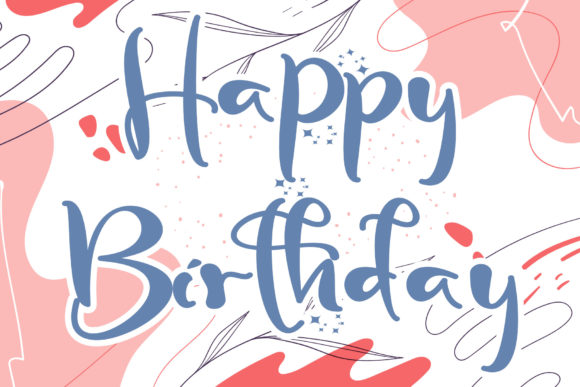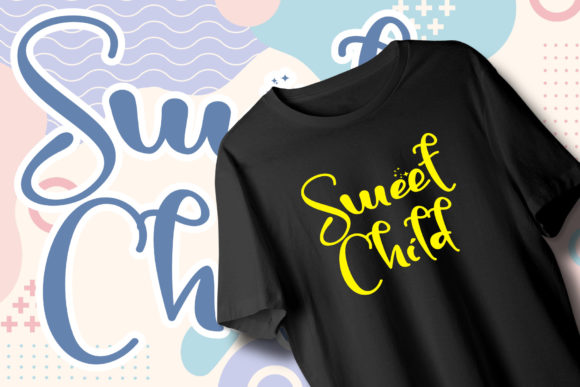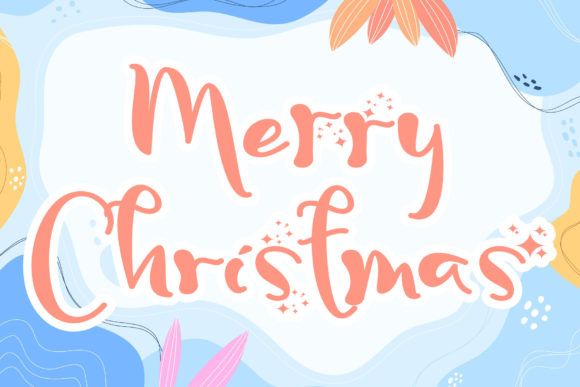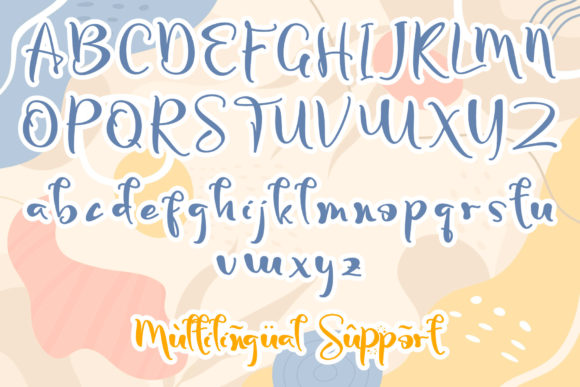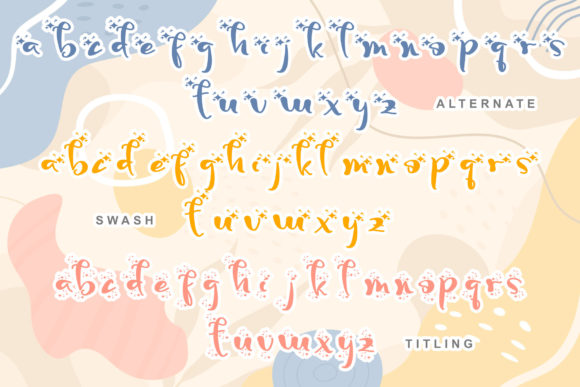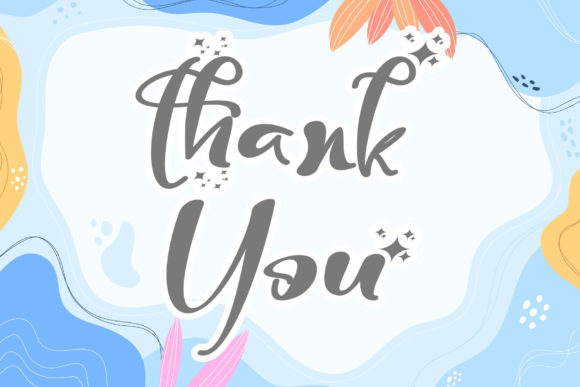
Introduction to Semrawut Font
Semrawut is a lovely and timeless handwritten font.
It is the best choice for creating eye catching logos, branding and quotes This font is PUA encoded which means you can access all of the glyphs and swashes with ease.
Semrawut Font offers exceptional quality and versatility, making it a valuable addition to your design toolkit. Whether you’re creating for personal projects or commercial use, Semrawut Font delivers professional results.